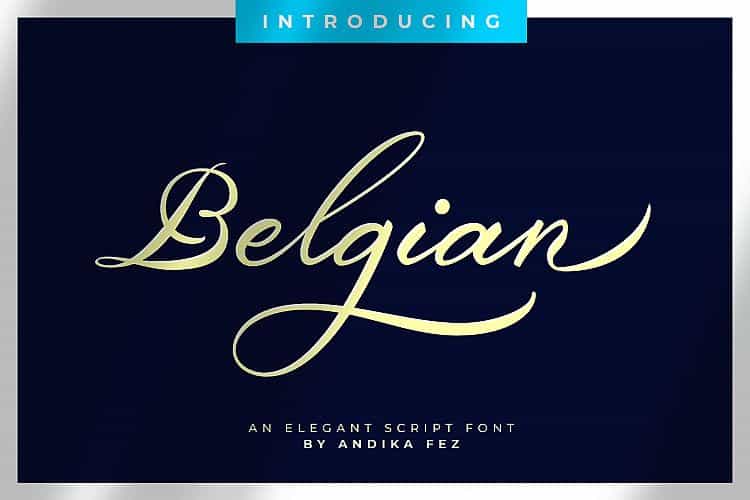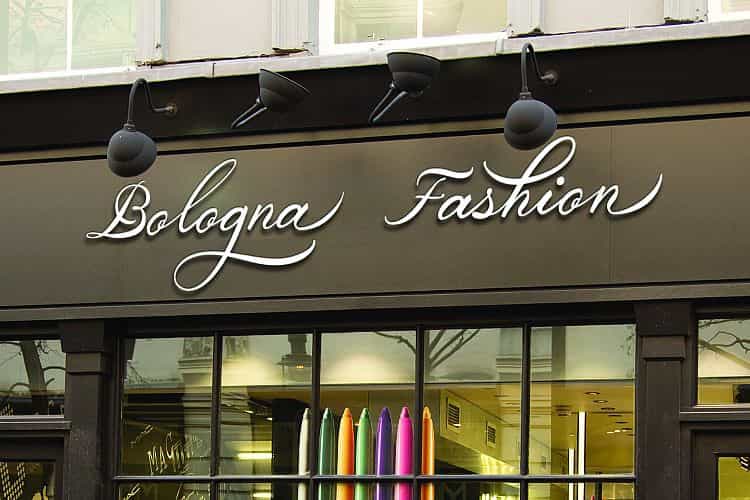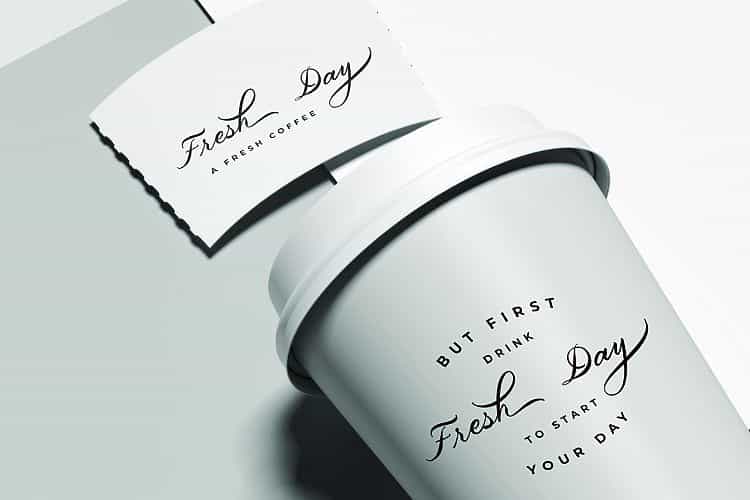
Discover Belgian Signature Font, part of the Calligraphy Handwritten collection—a versatile and unique font perfect for adding a personal touch to your projects. Download it for free and enjoy crafting designs with style, from invitations to social media posts. This font is available exclusively for personal use, giving you the freedom to create without limits. Unlock your creativity with Belgian Signature Font today!
Not least allow me to introduce you to the Belgian Font. An elegant script font that exudes sophistication and charm in every stroke. Feel free to use these fonts for your wedding postcards or create designs for your logo, blog, stationery items, marketing materials, magazines and more! Cheers, to creativity! This font has a calligraphy style that works great for branding, wedding invitations, cards, labels and more.